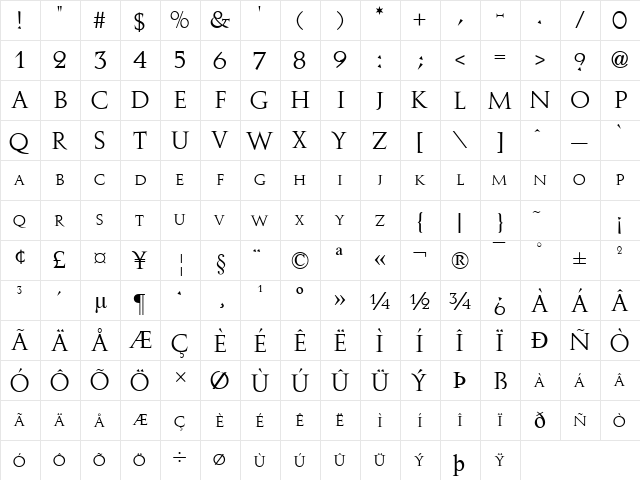
Stowe Titling Regular
Design Context for Stowe Titling Typeface
Stowe Titling takes a measured approach to typography — its balanced proportions and neutral character make it a reliable workhorse for both digital and print work.